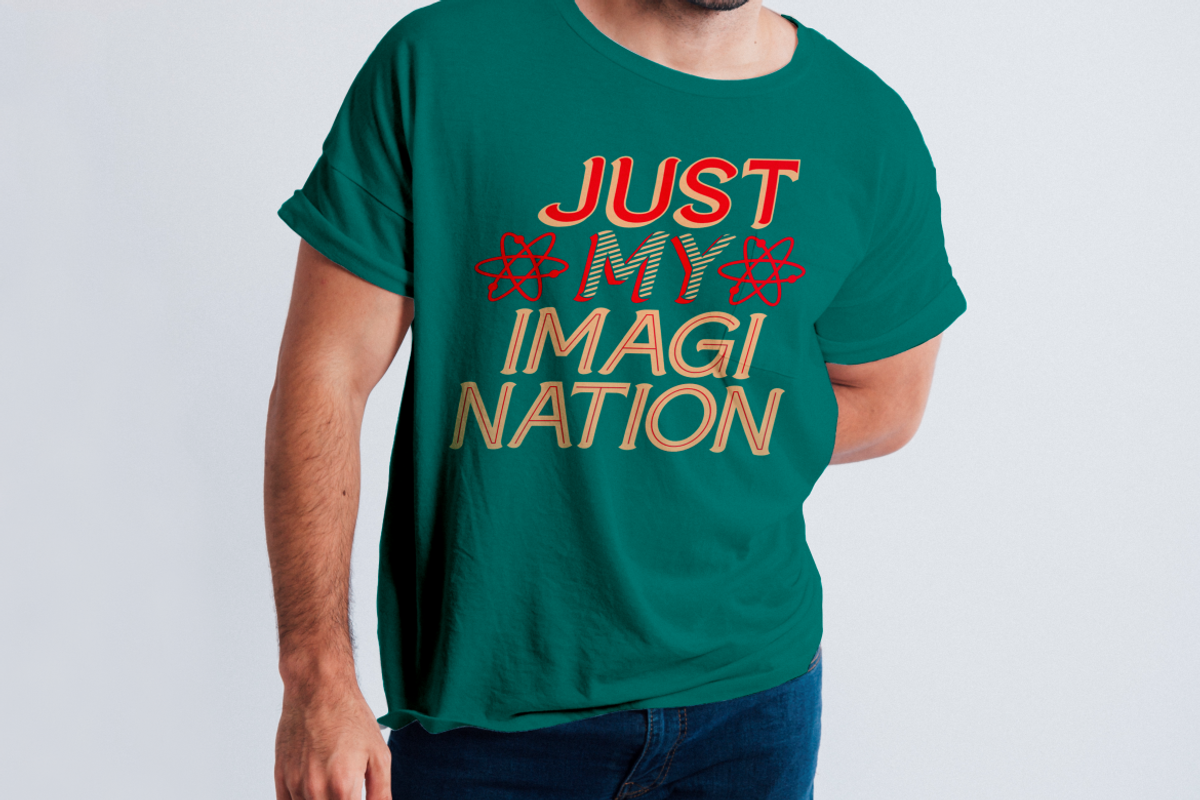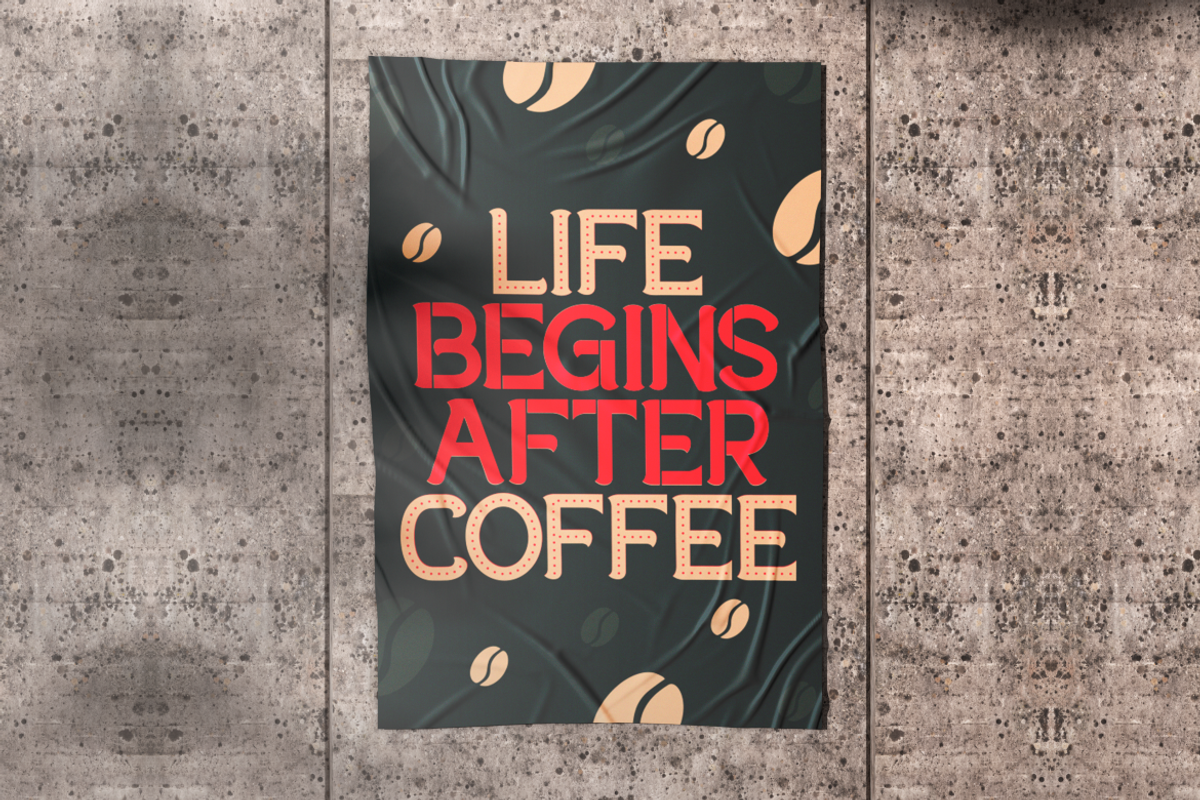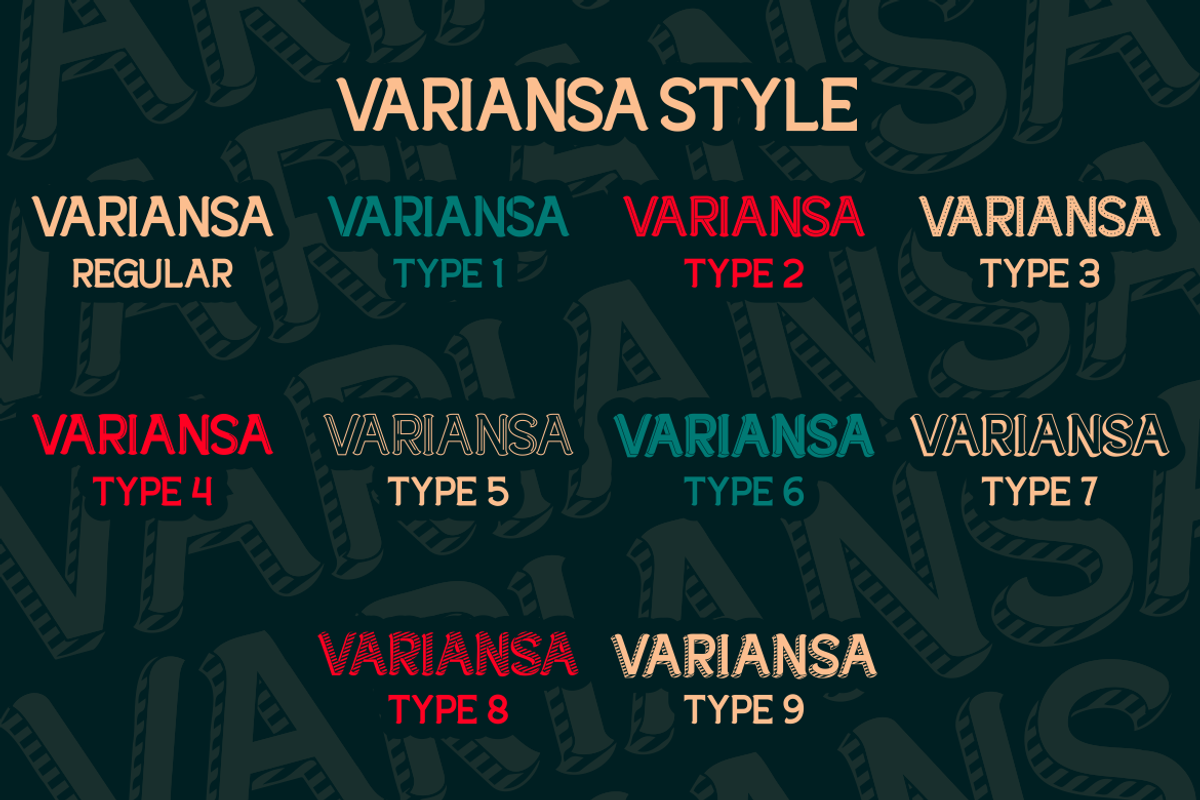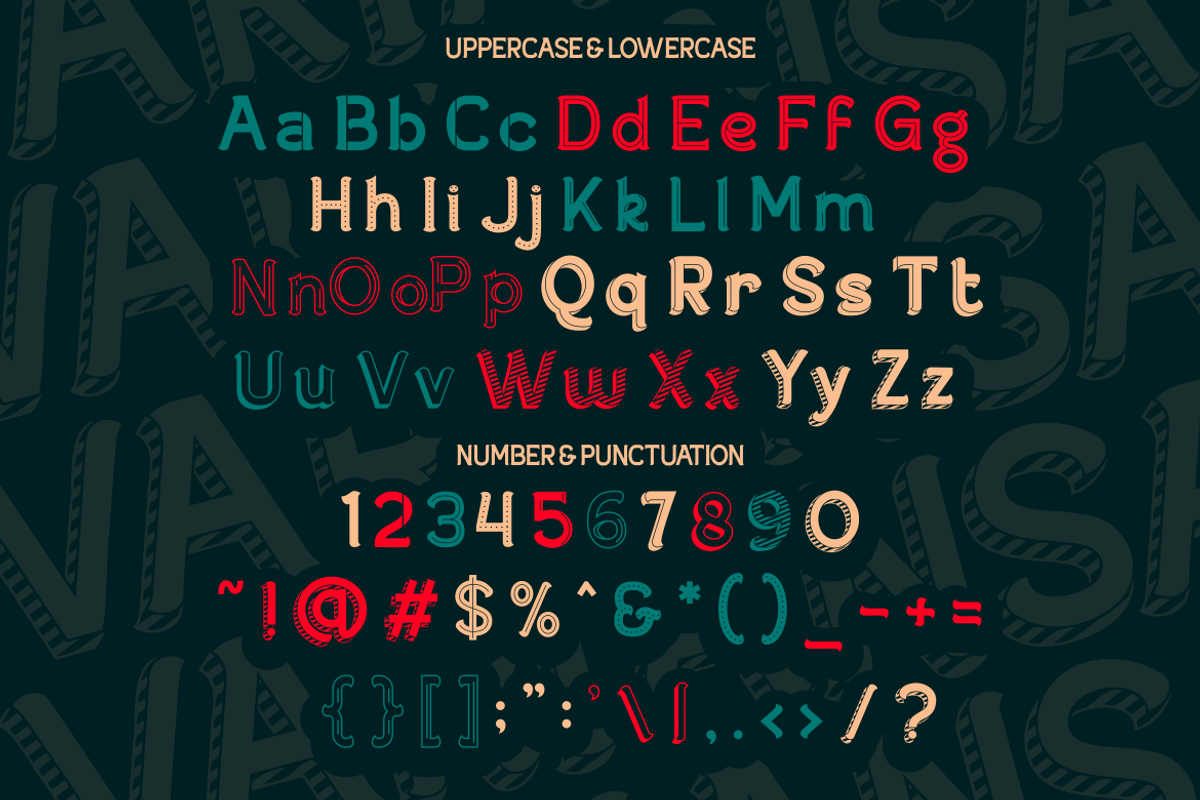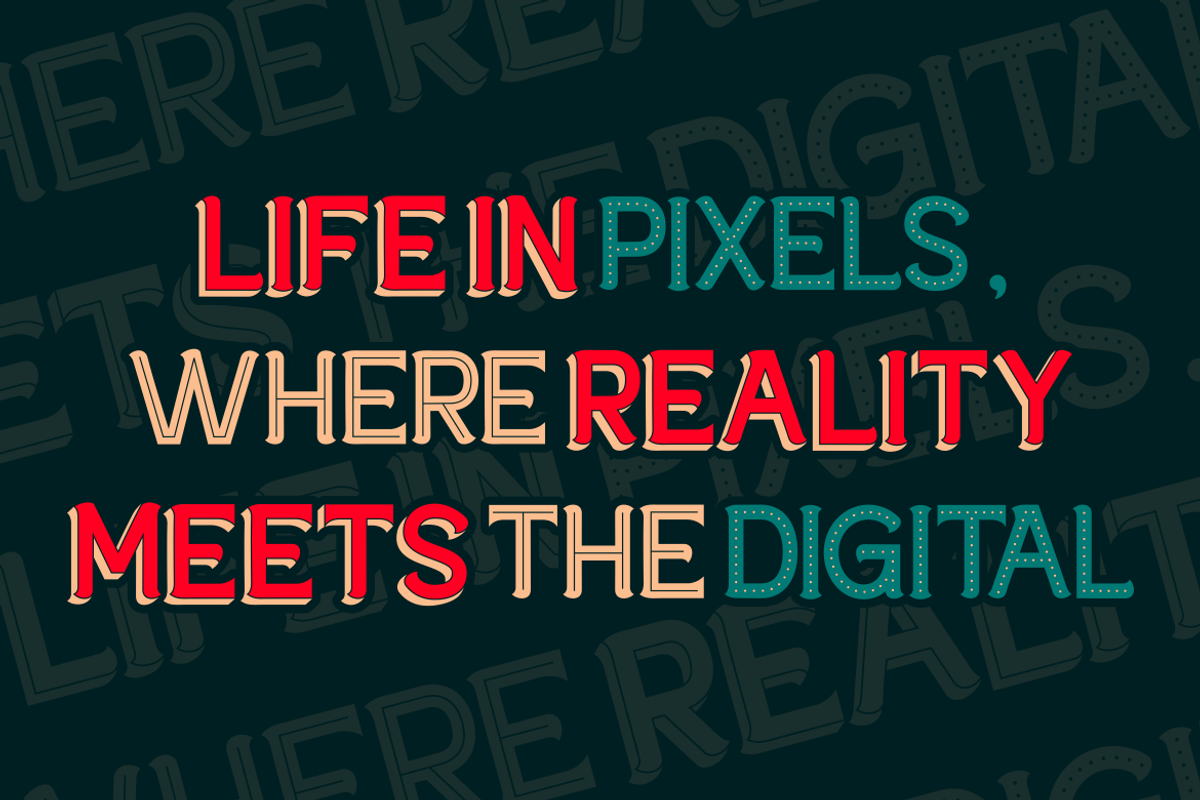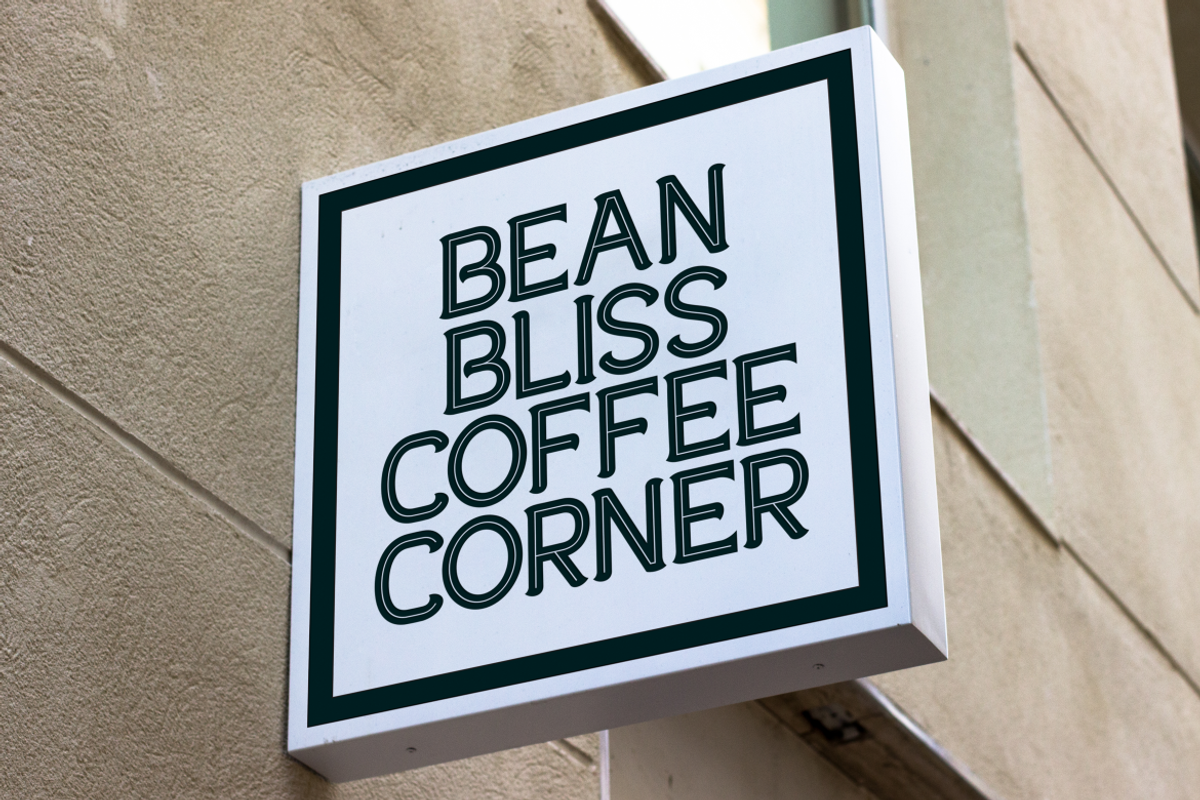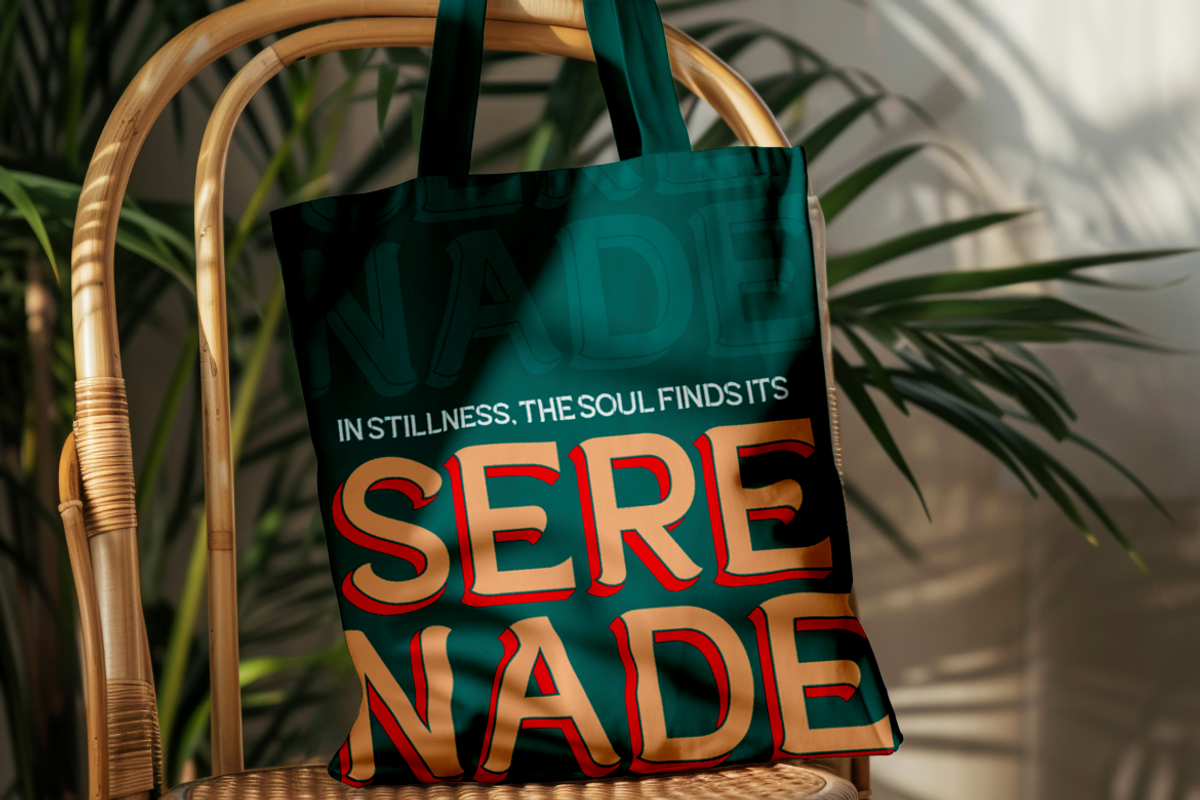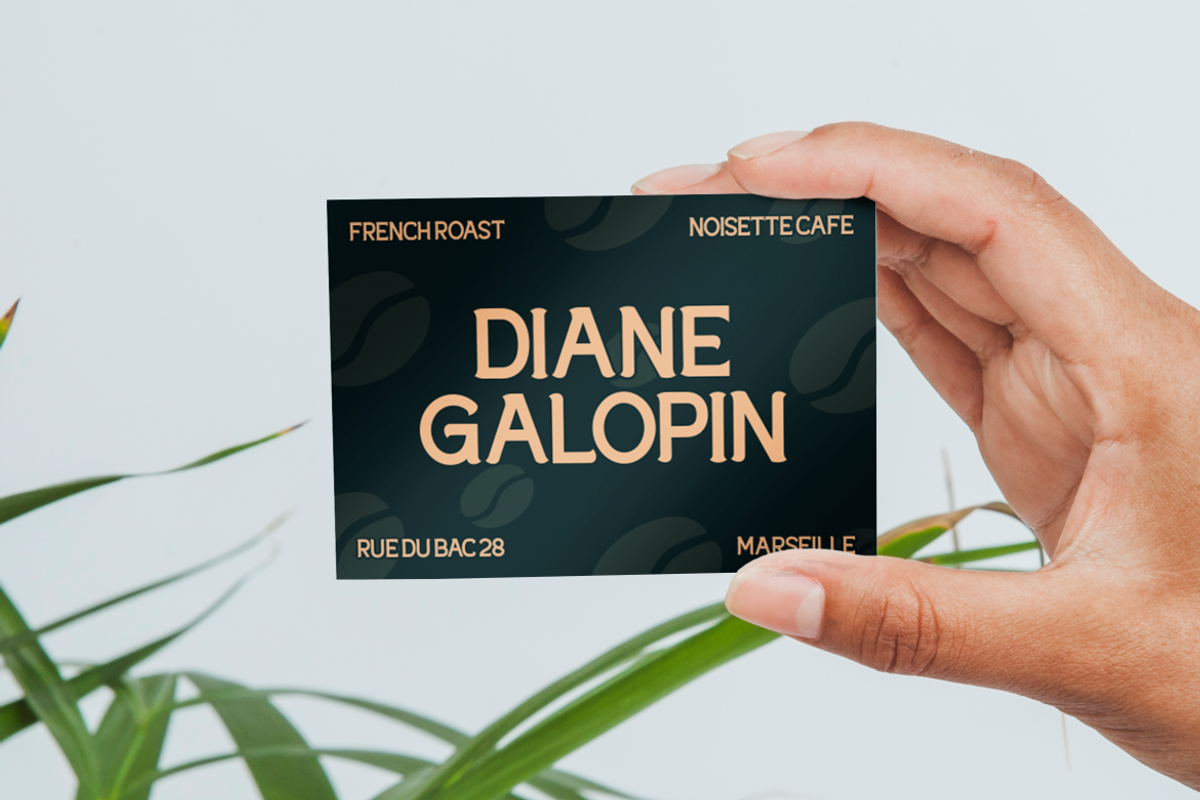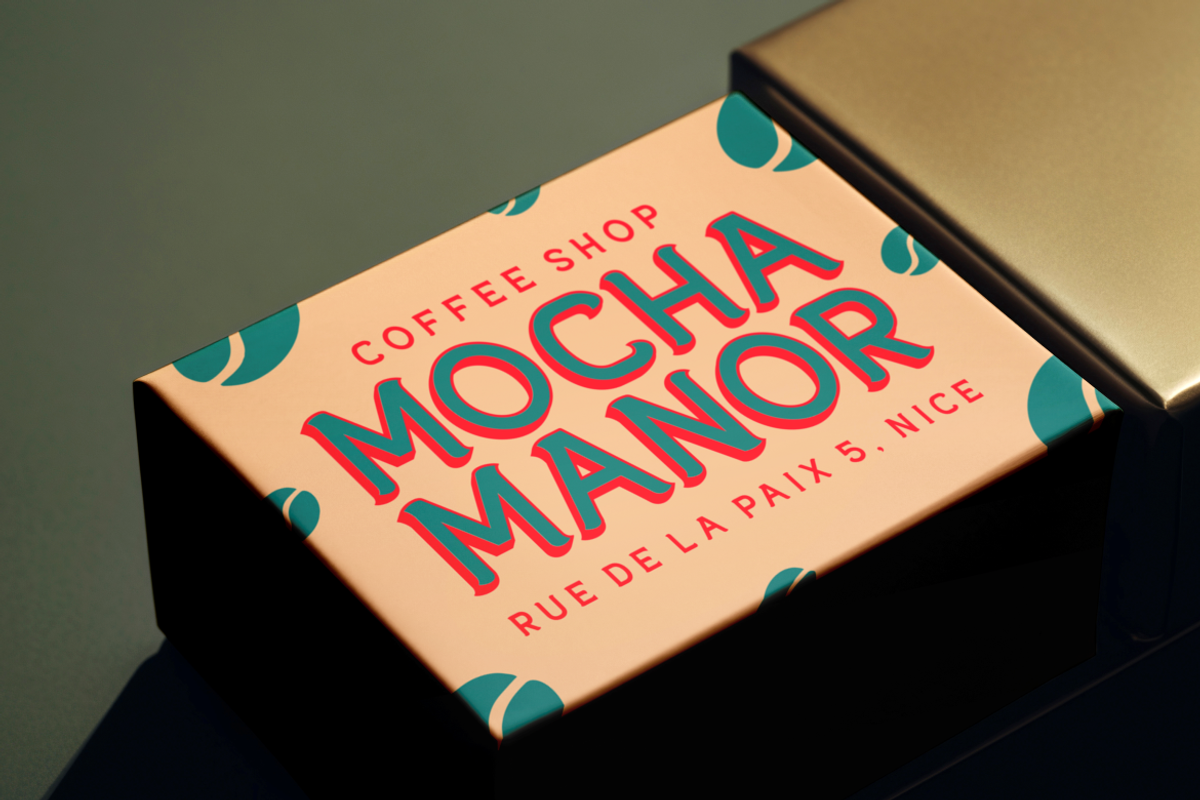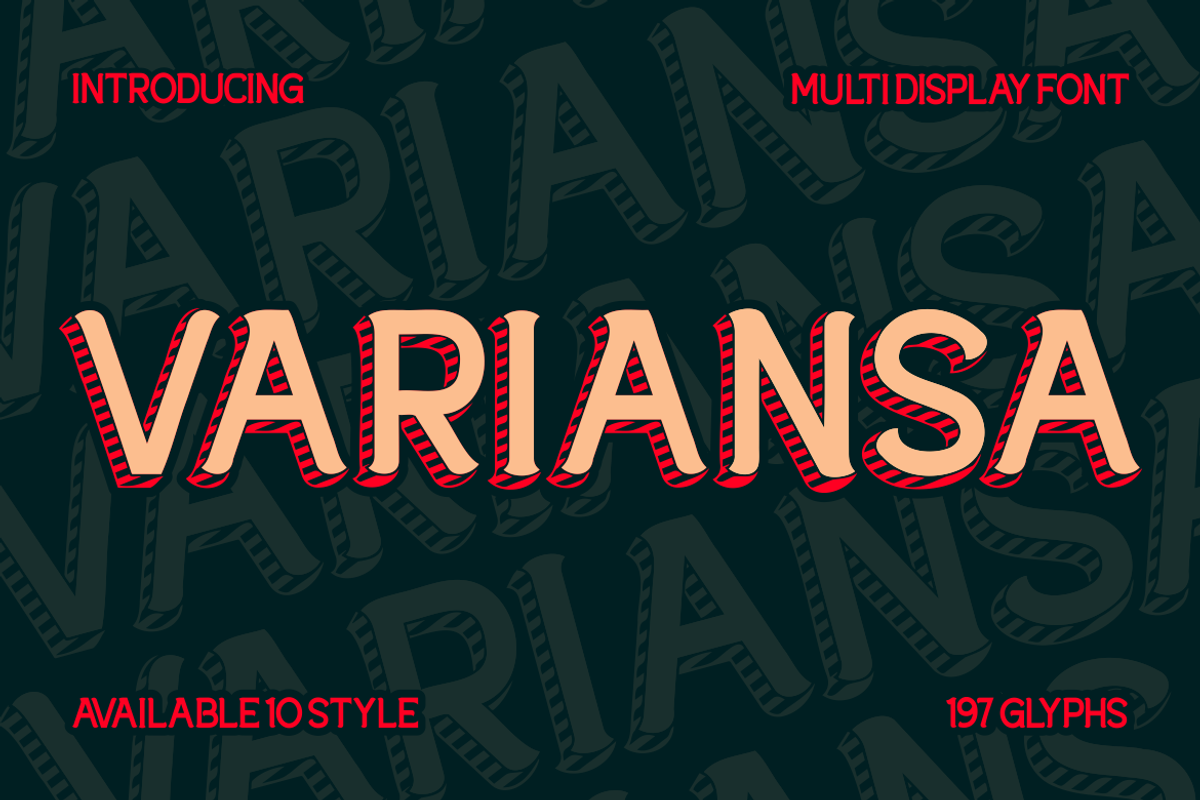
Variansa - Multi Display Font
Introducing Variansa, the ultimate multi-display font that brings your creative projects to life. With its eye-catching and versatile design, Variansa offers a stunning array of 10 unique styles that cater to a variety of design needs. This sans-serif display font boasts 197 meticulously crafted glyphs, ensuring a wide range of typographic possibilities for any project. Whether you're designing a bold logo, an elegant wedding invitation, or a captivating movie poster, Variansa provides the perfect blend of modern flair and classic charm. Its robust character and distinctive style make it an ideal choice for branding, crafting, packaging, and so much more.
Variansa is not just a font; it's a creative powerhouse. Its versatility extends to a plethora of applications, from business cards and book covers to stickers and magazine layouts. Each style within the Variansa family has been designed to maintain visual coherence while offering unique personality traits, allowing designers to mix and match for maximum impact. Whether you're aiming for a playful, sophisticated, or dramatic look, Variansa's extensive style range ensures your designs will stand out. Elevate your design game with Variansa, the multi-display font that's perfect for any occasion.